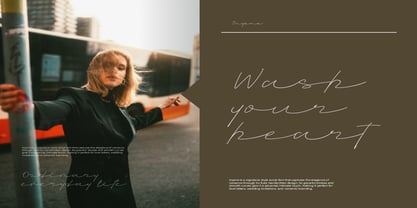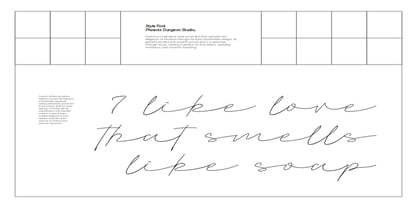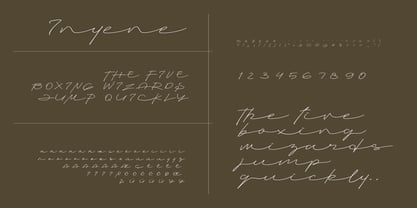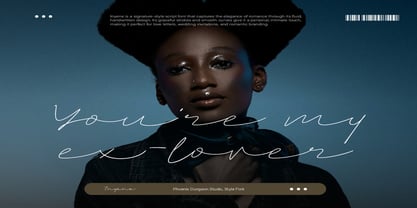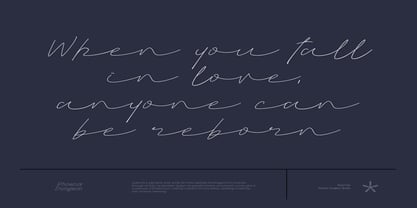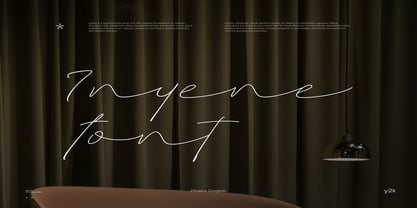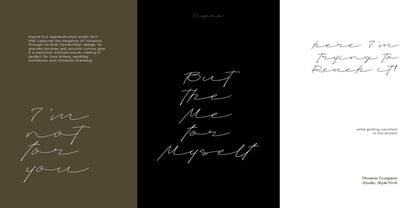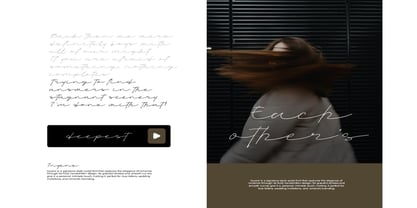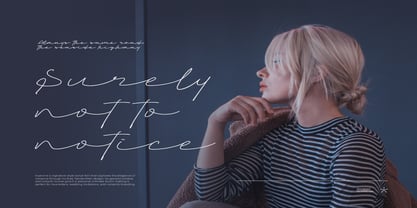
Inyene
by Phoenix Group
The Inyene Font Family was designed by Alif Naufal Muzakki and published by Phoenix Group. Inyene contains 1 styles.
Inyene is a signature-style script font that captures the elegance of romance through its fluid, handwritten design. Its graceful strokes and smooth curves give it a personal, intimate touch, making it perfect for love letters, wedding invitations, and romantic branding. Inyene's refined yet natural aesthetic evokes the feeling of a handwritten signature, adding authenticity and charm to any project. Ideal for those seeking a font that blends sophistication with heartfelt emotion, Inyene brings a timeless elegance to your designs, embodying the essence of romance and personal expression.